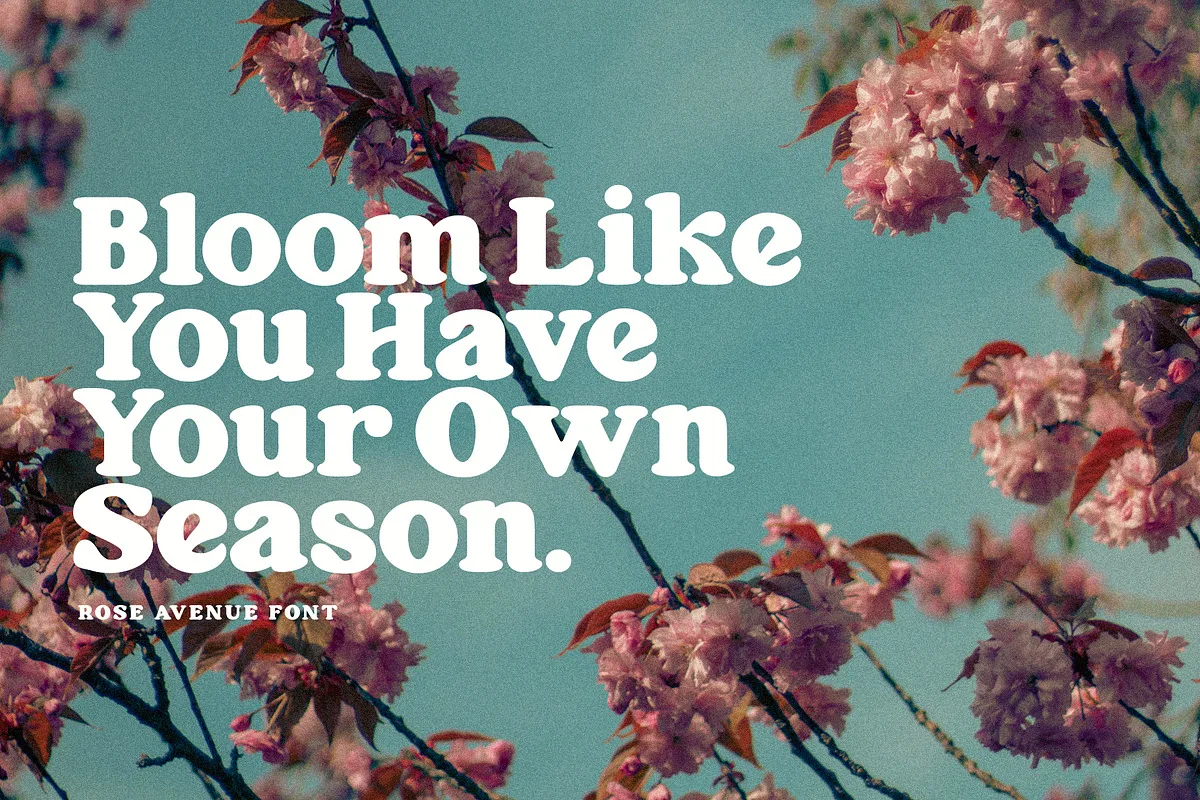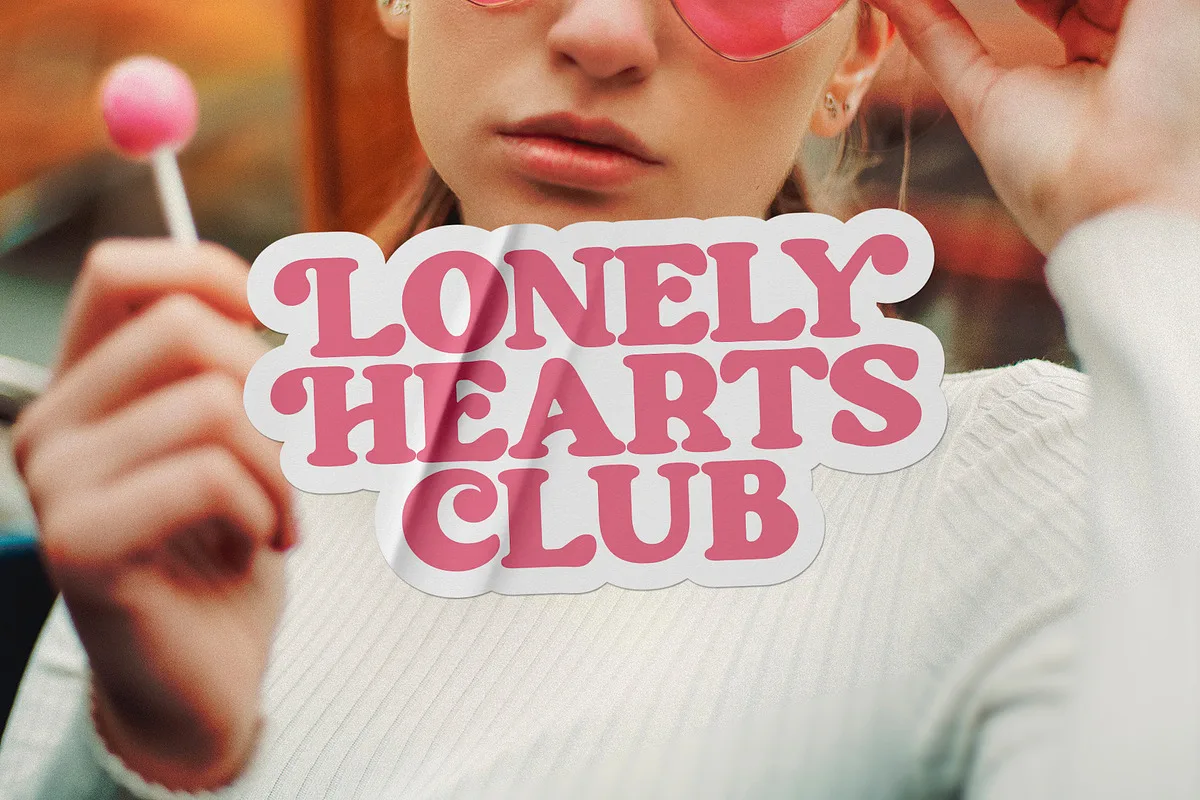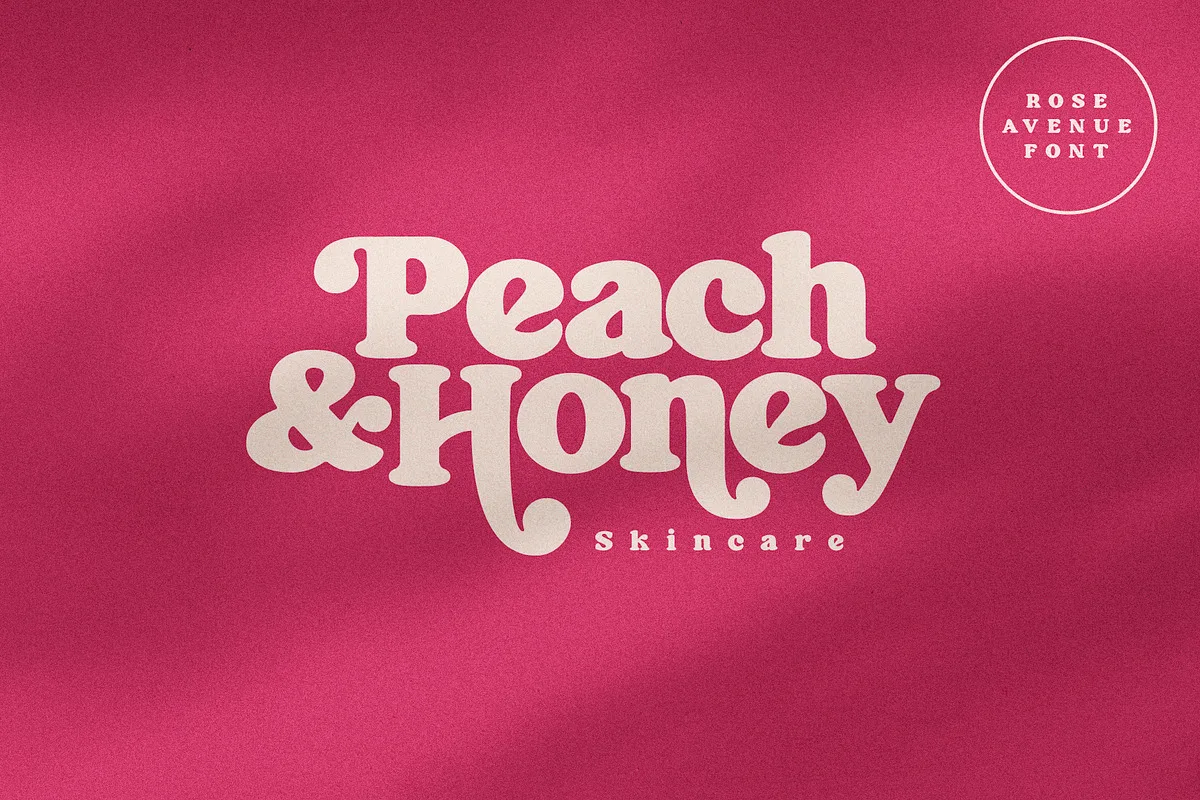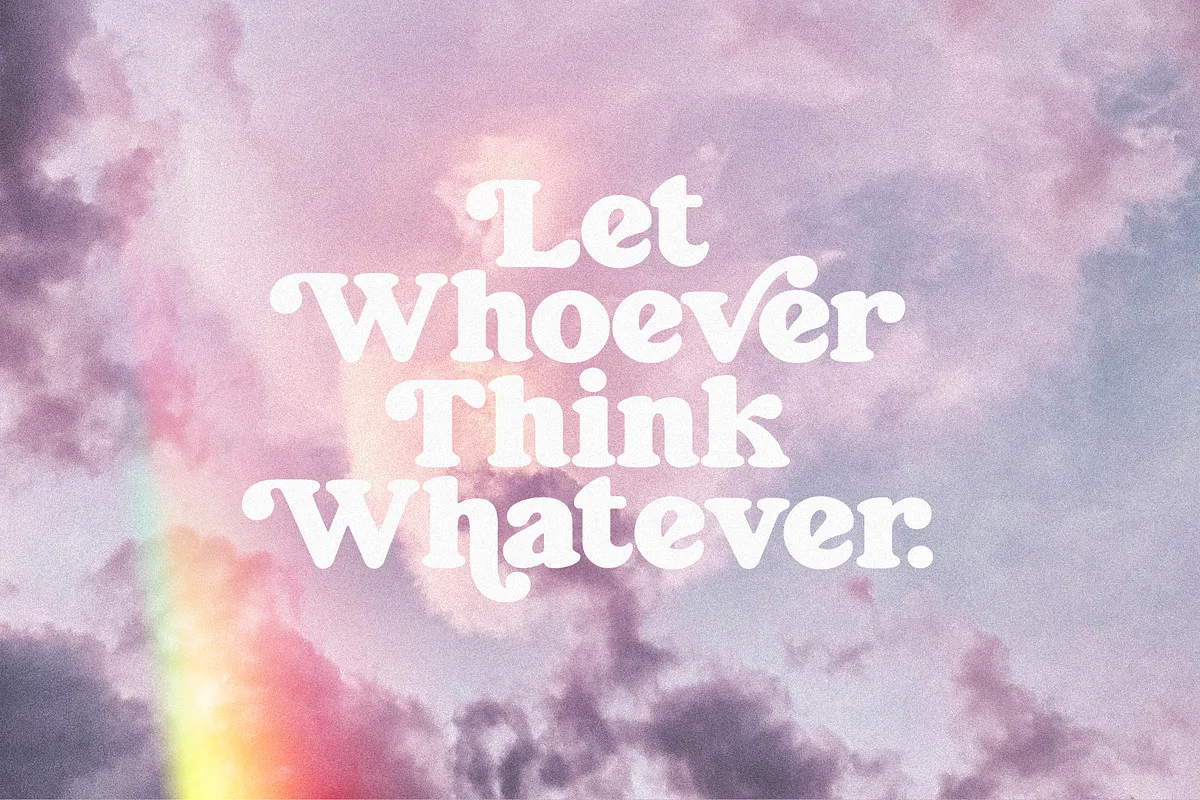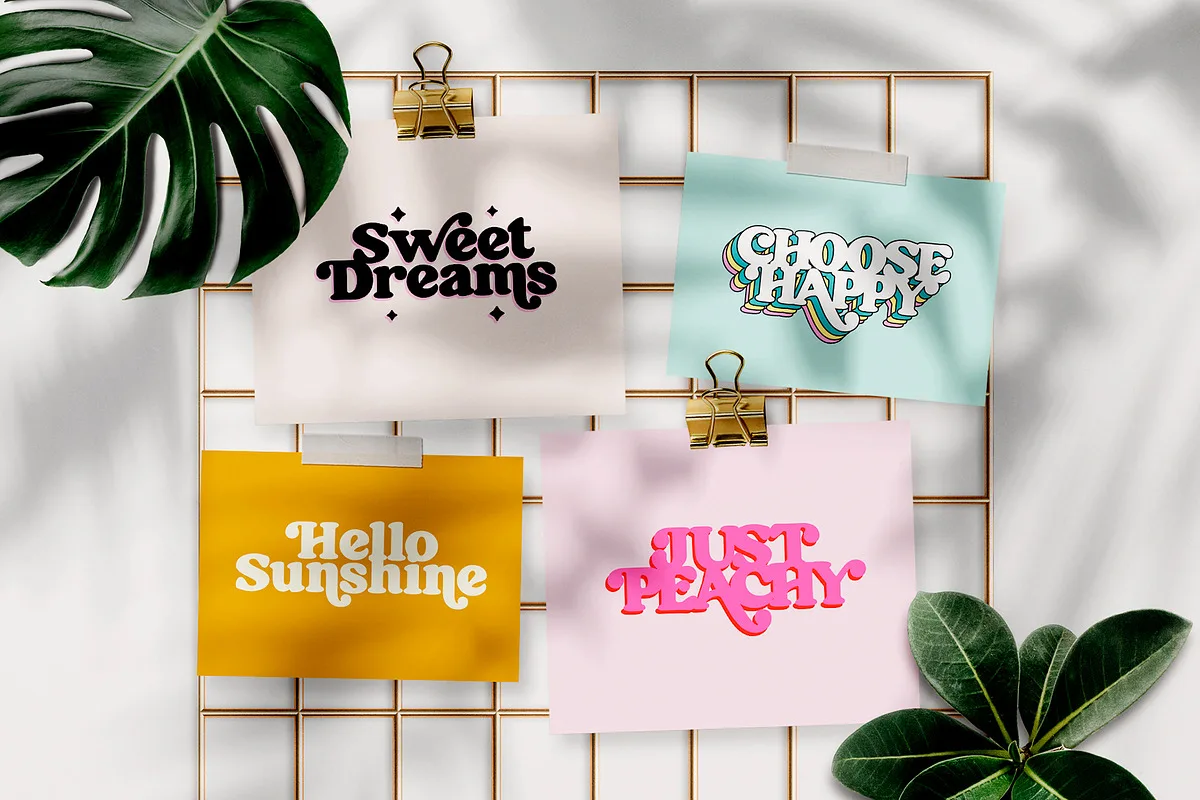
Rose Avenue is an extra-bold serif font with soft, rounded edges and a charming retro feel. Blending vintage typography with a modern touch, it includes 70 special characters for unique flourishes and custom text arrangements. Ideal for logos, bold headers, and eye-catching designs, Rose Avenue adds personality and impact to any project.